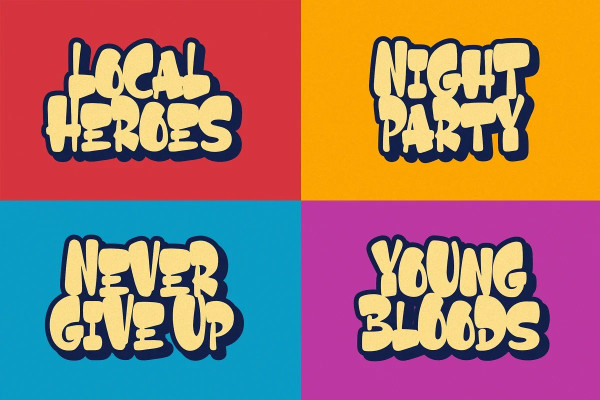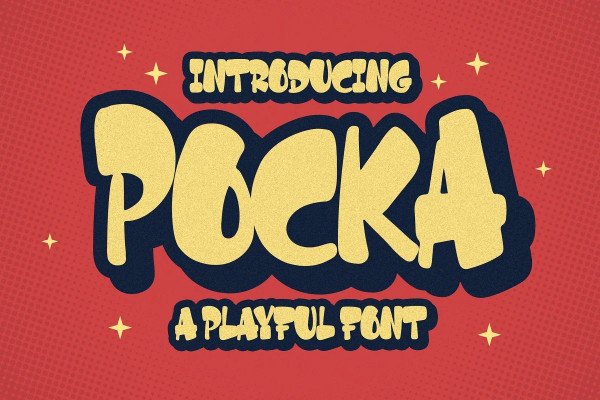
Pocka Font
Pocka Font a Playful Font, Inspiring from Playful typography. This font is perfect for a design that makes it more attractive and playful. made with a very good level of aesthetics making this font suitable for book cover, poster, packging, merchandise, logotype and much more.